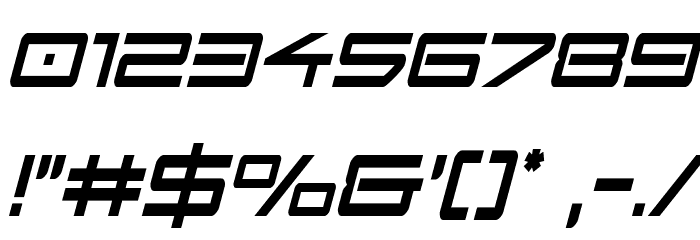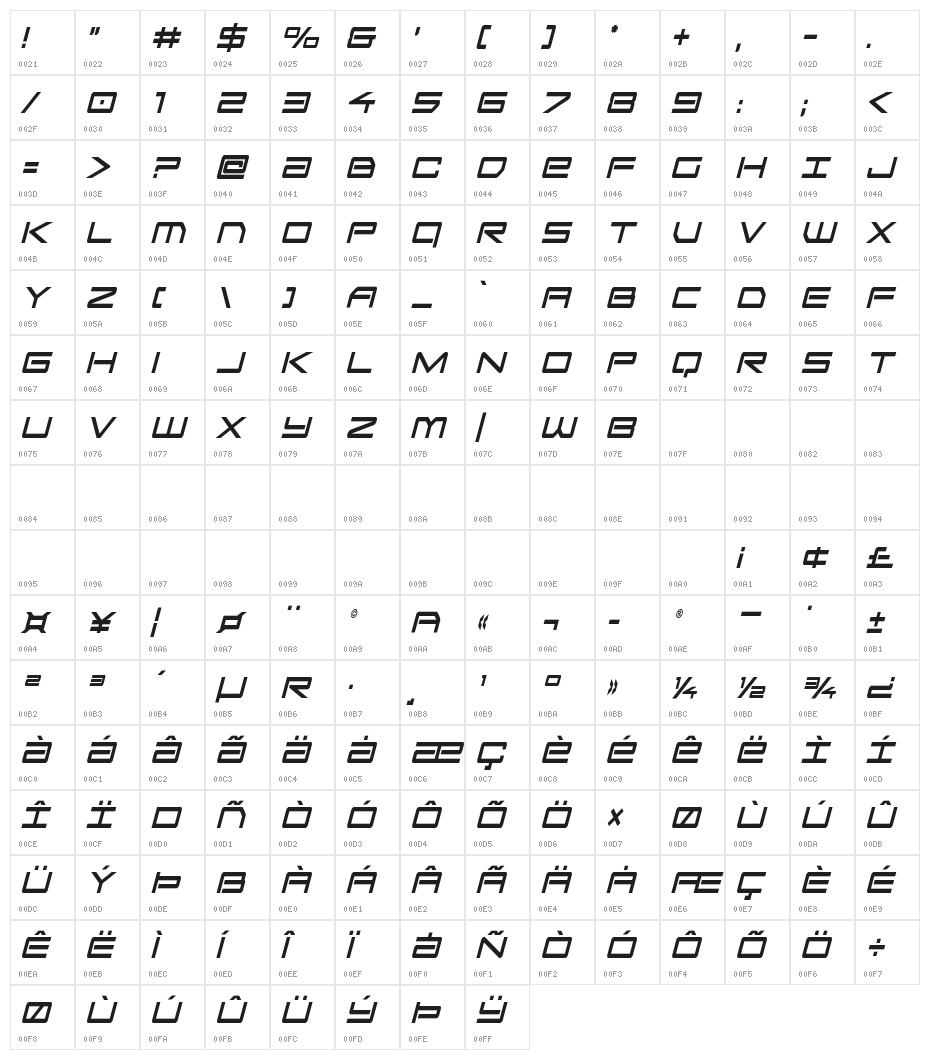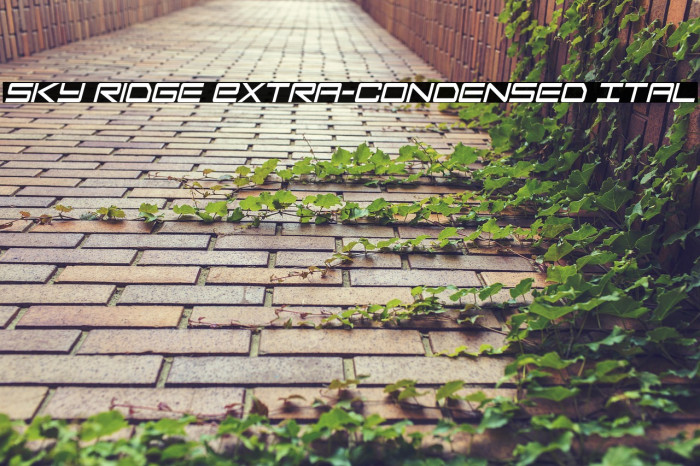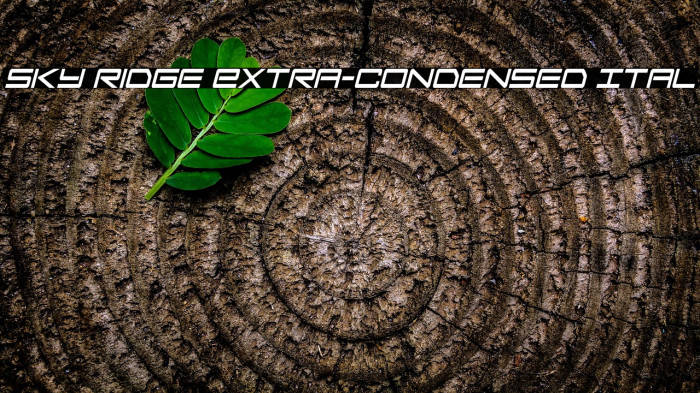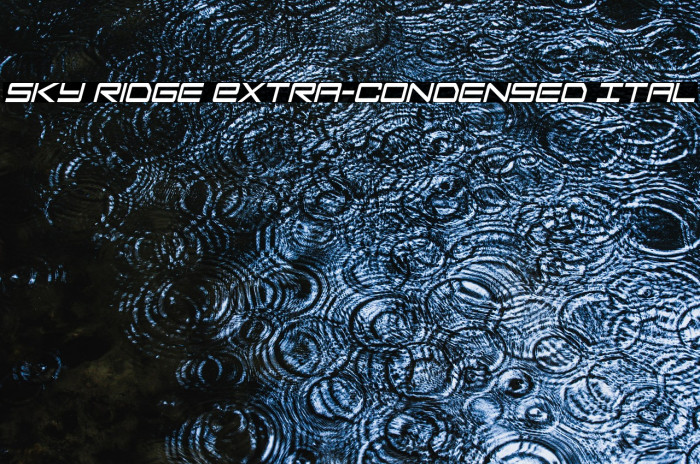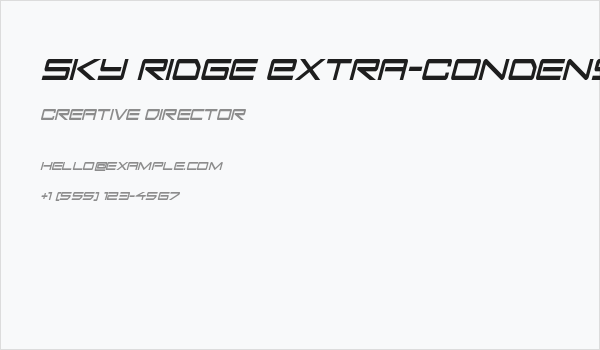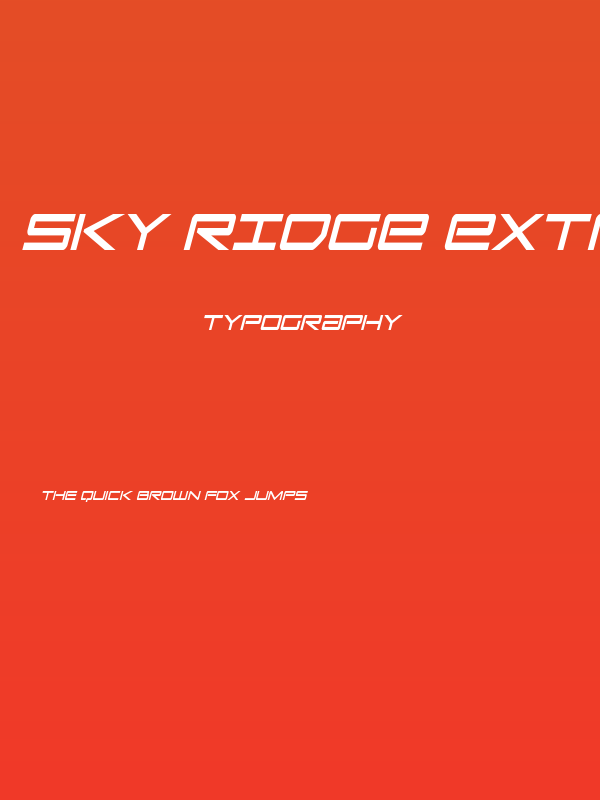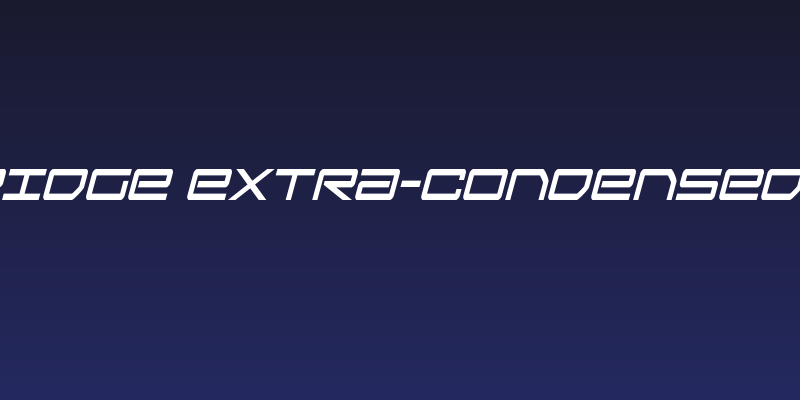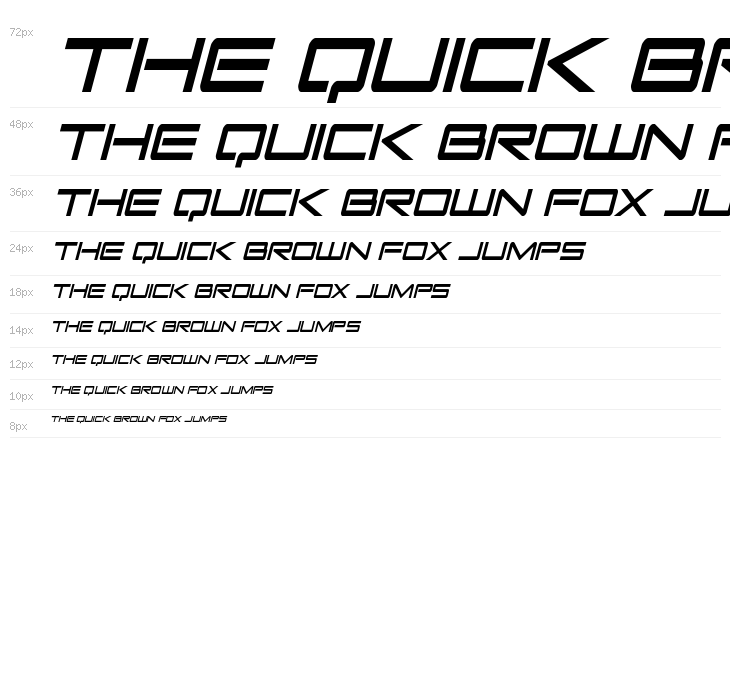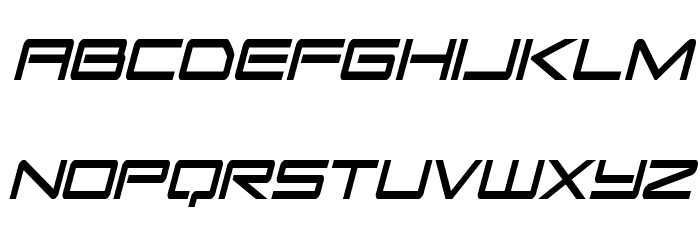
Sky Ridge Extra-Condensed Ital Font
Sky Ridge Extra-Condensed Ital Description
This font features a sleek, futuristic design with a distinctly angular and geometric style. The characters are extra-condensed, giving them a narrow appearance, which is accentuated by the italic slant. The strokes are consistent in weight, providing a uniform look across all characters. The uppercase and lowercase letters maintain a cohesive design, with sharp edges and minimal curves, enhancing the modern aesthetic. The numerals and special characters follow the same stylistic approach, ensuring a seamless integration with the alphabet. This font is ideal for projects that require a modern, tech-inspired look.
| Proposed Projects | Ideal for technology branding, sci-fi themed designs, modern posters, and innovative product packaging. |